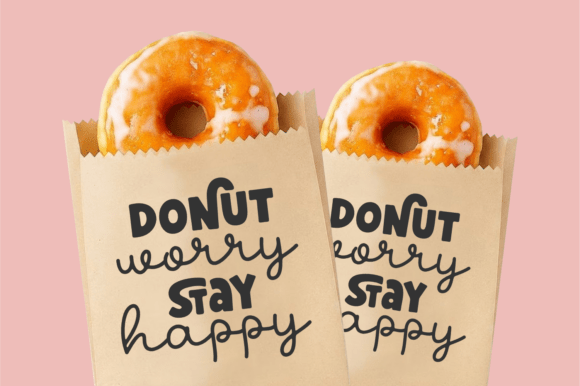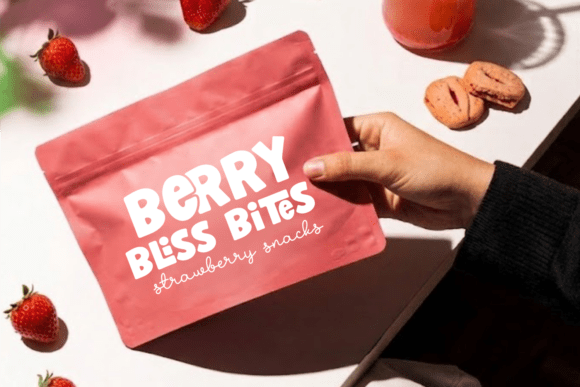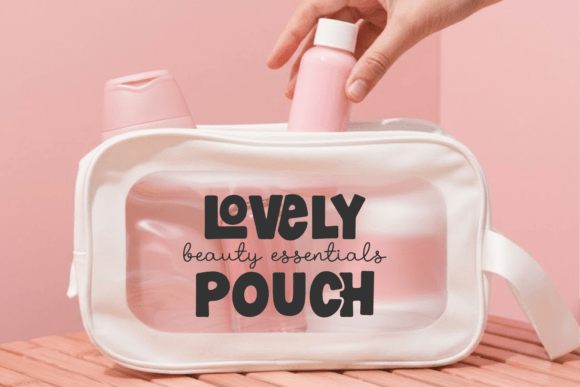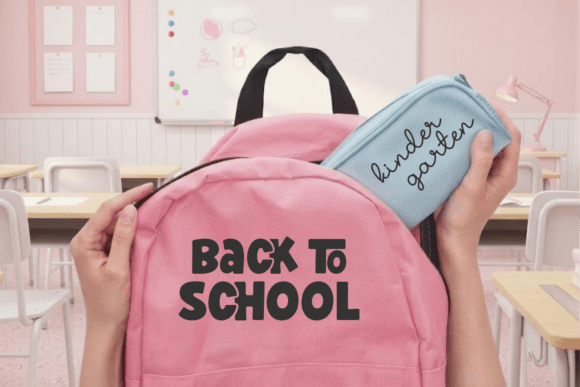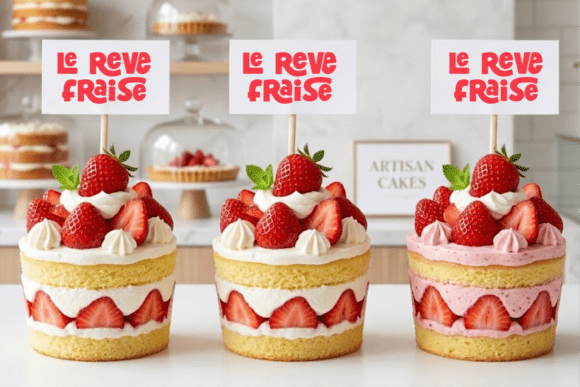
Introduction to Shortcake Strawberry Font Font
Fonts play a crucial role in design, and the Shortcake Strawberry Font font is a typeface that brings both character and versatility to any project. Whether you’re working on a branding project, a website, or a print design, the Shortcake Strawberry Font font offers a unique style that can elevate your work.
Shortcake Strawberry – A Sweet & Playful Font Duo Add a burst of joy and sweetness to your creative projects with Shortcake Strawberry, a delightfully bubbly and hand-drawn font designed to make your designs pop.
With its soft, rounded edges and organic letterforms, this typeface captures a kawaii aesthetic that is both friendly and undeniably eye catching Shortcake Strawberry comes in two versatile styles: Display Bold and Monoline Script.
Key Features of Shortcake Strawberry Font Font
Why Choose Shortcake Strawberry Font Font?
The Shortcake Strawberry Font font is more than just a typeface – it’s a design tool that helps you communicate your message with style and clarity. Its unique character set and versatile design make it suitable for a wide range of applications, from elegant invitations to bold headlines.
With its carefully crafted letterforms and balanced proportions, the Shortcake Strawberry Font font ensures readability and visual appeal across all mediums.
What makes Shortcake Strawberry Font font special?
The Shortcake Strawberry Font font stands out with its unique design, exceptional readability, and versatility across various design applications.